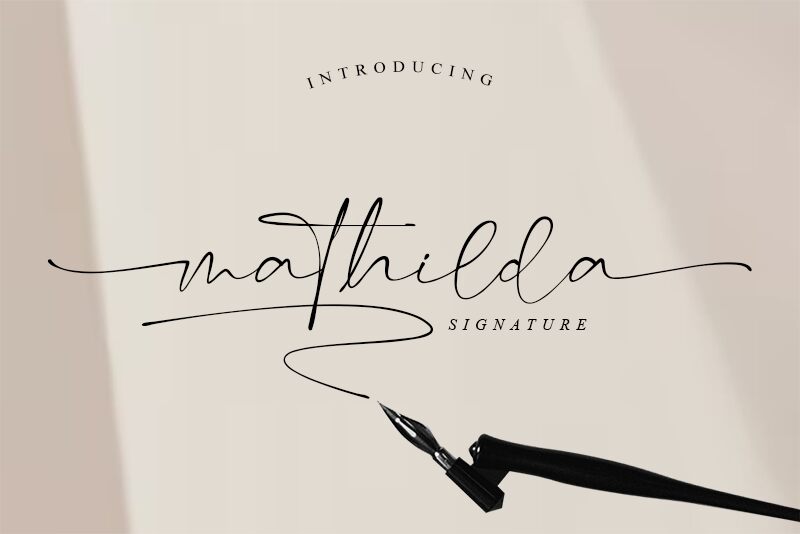
MathildaSignatureSwash
Mathilda Signature Swash, a creation by Beautypes, embodies the delicate and sophisticated essence of handwritten elegance. This light font is effortlessly graceful, characterized by its fluid strokes and refined curves that mimic the natural flow of handwritten script. Its unique aesthetic seamlessly blends casual charm with refined grace, making each letter feel personal and inviting.
From event invitations to branding projects, Mathilda Signature Swash adds a touch of individuality and warmth. Whether used for wedding stationery, logos, or any creative project requiring an intimate yet stylish touch, this font offers versatility with an air of understated sophistication. Embrace the personal flair and elevated appeal that Mathilda Signature Swash brings to your next design endeavor.